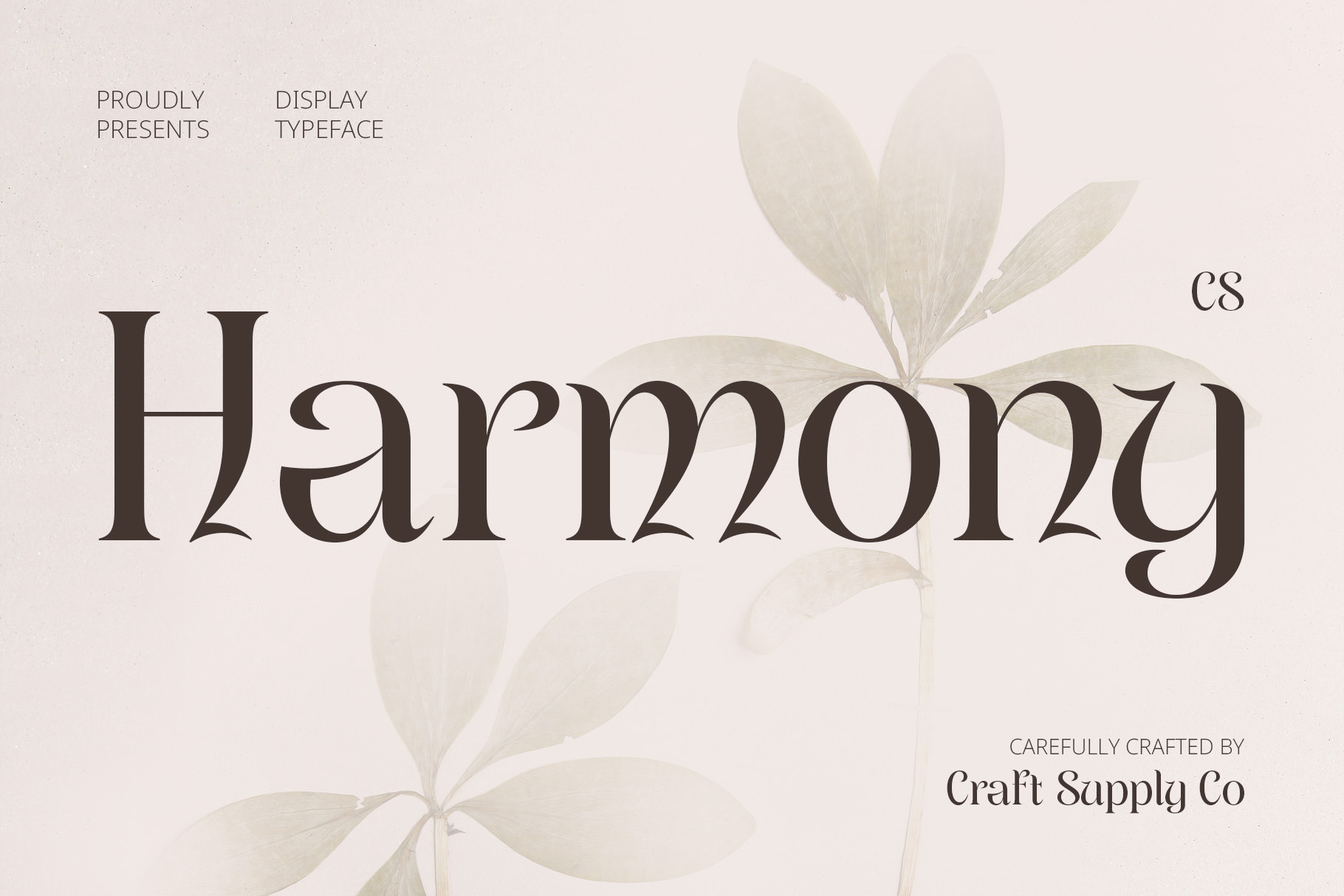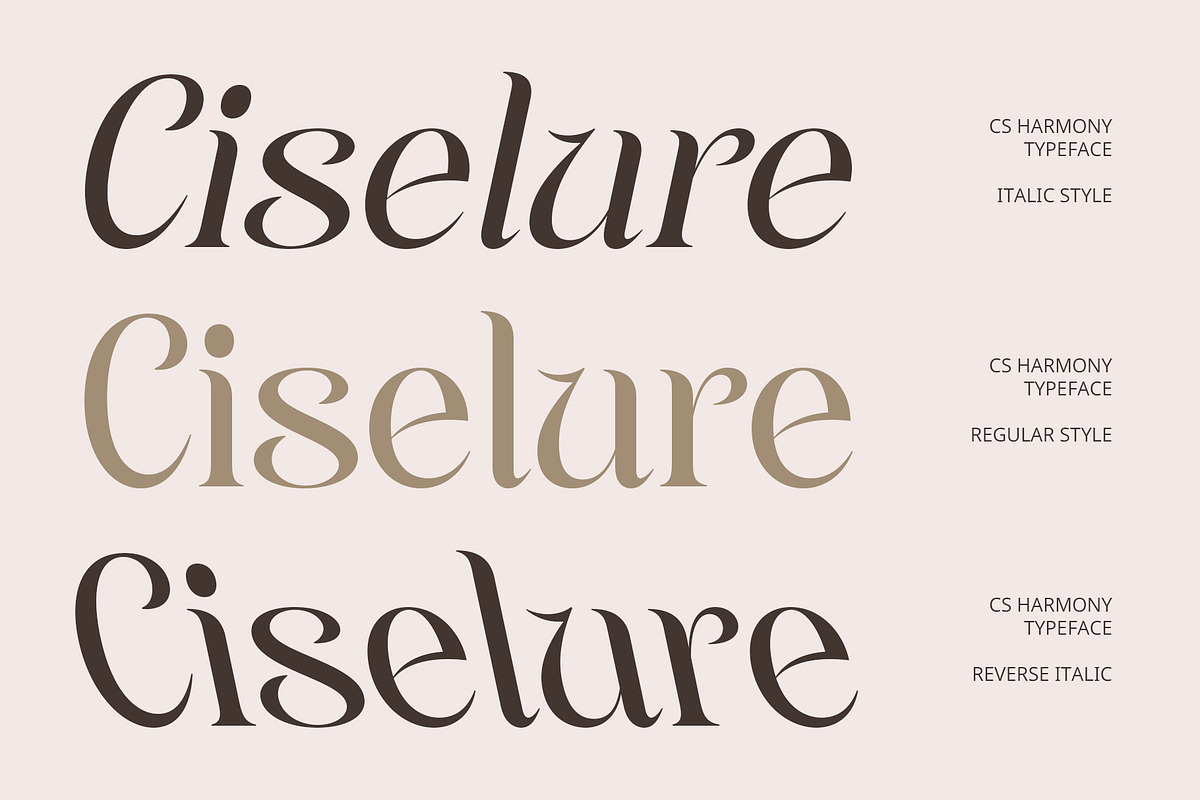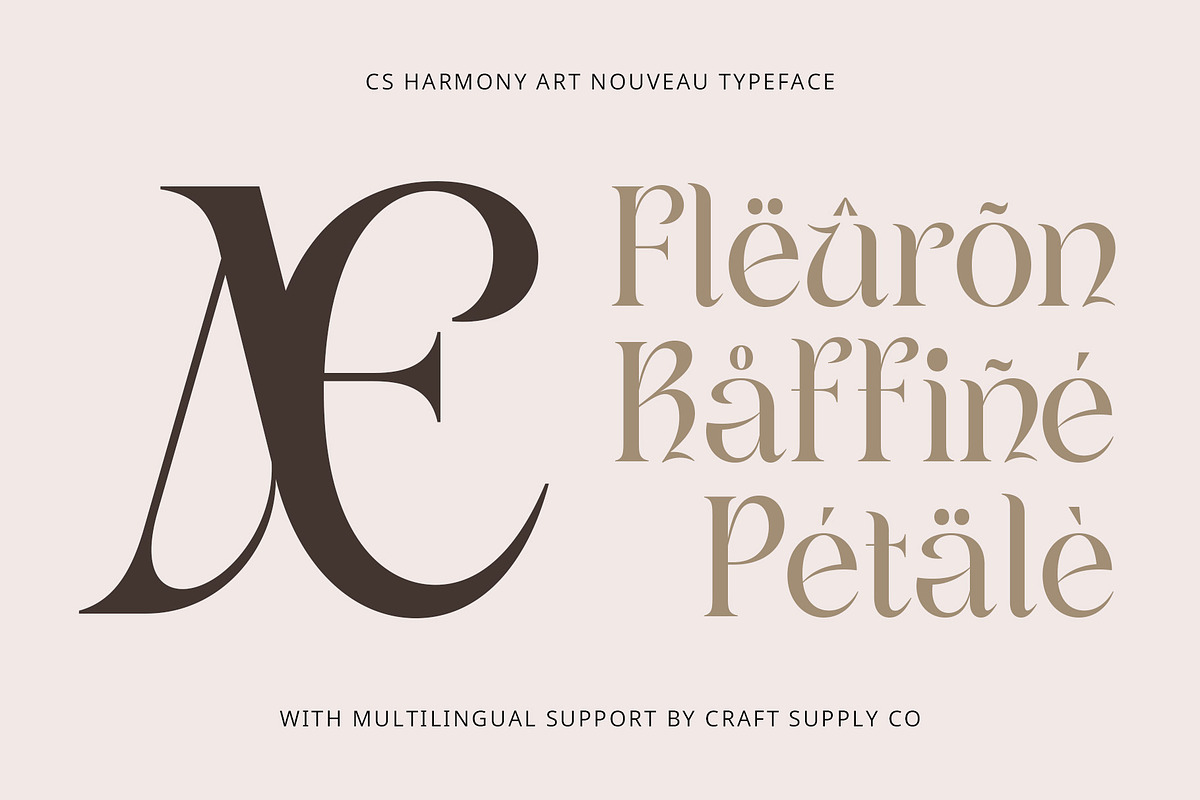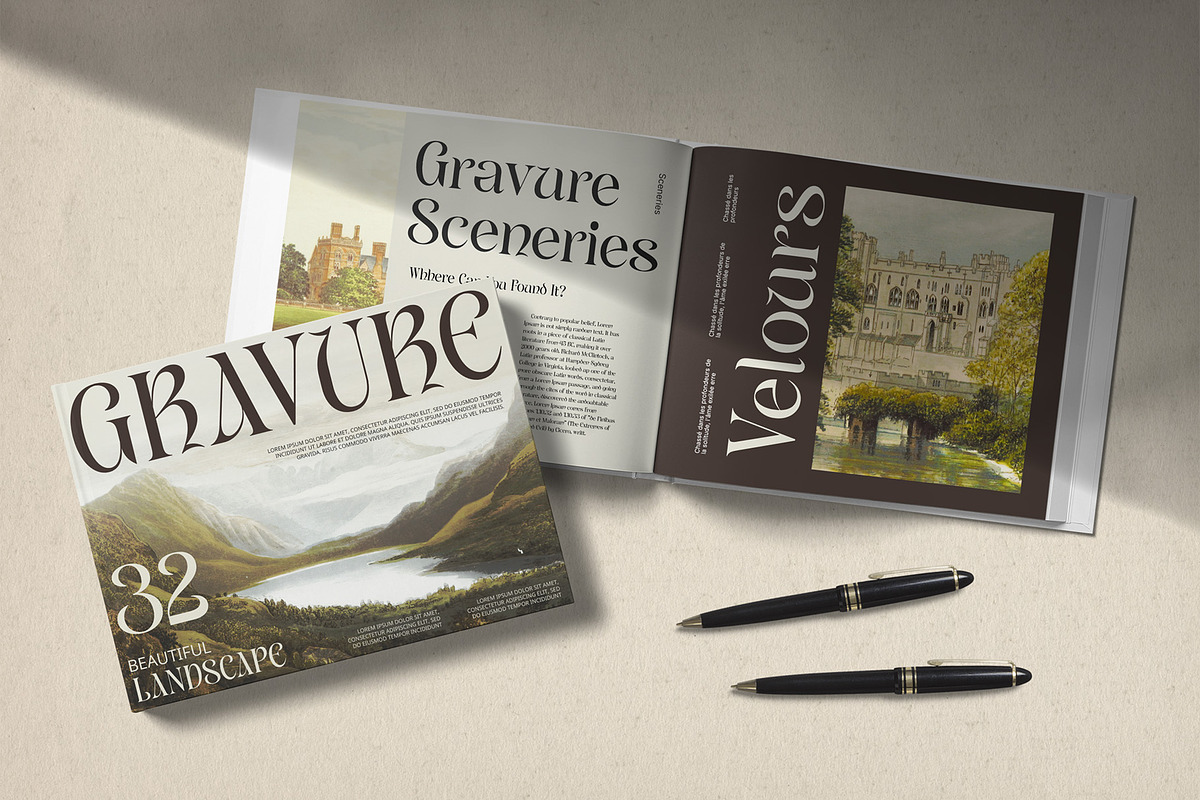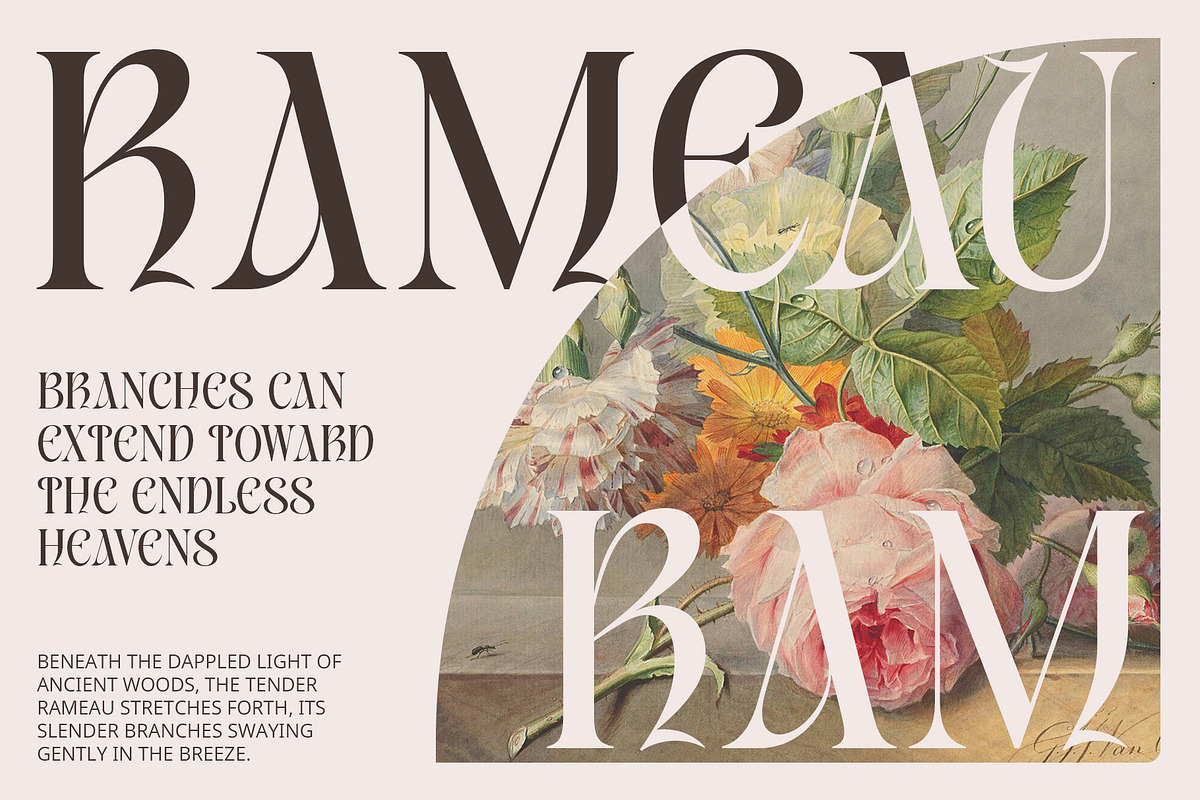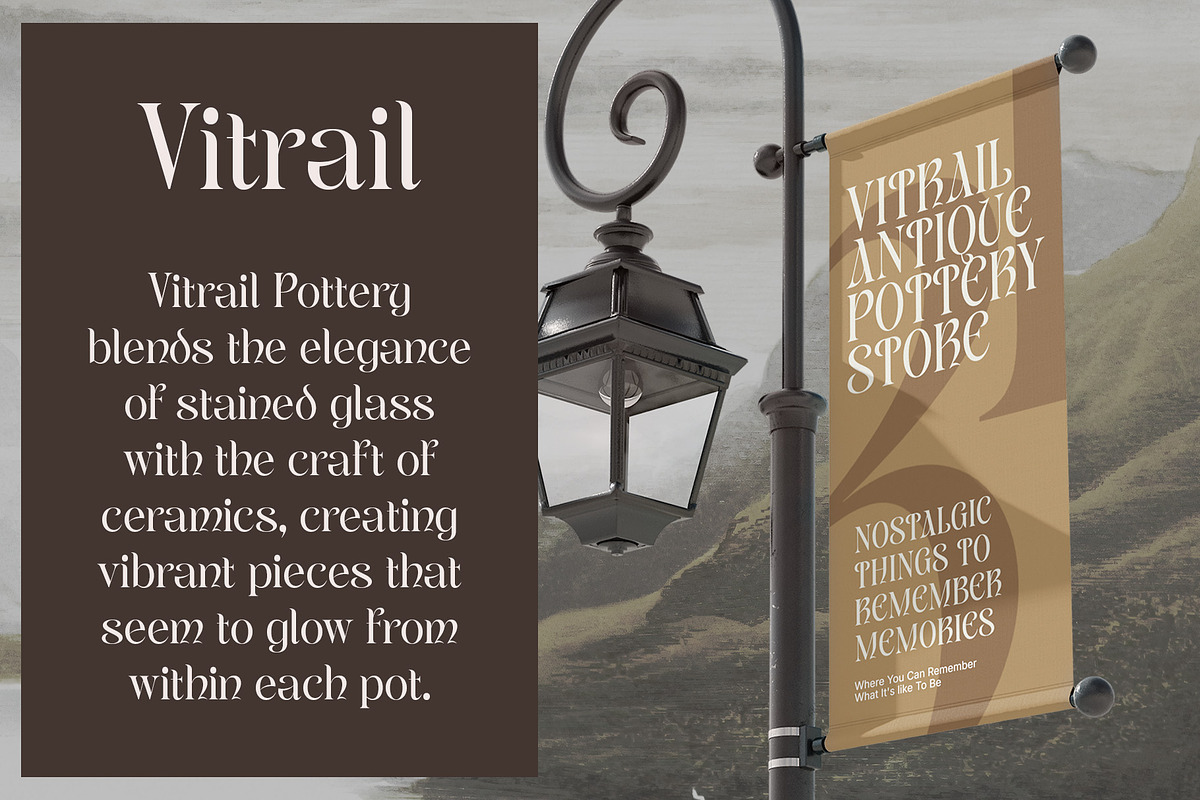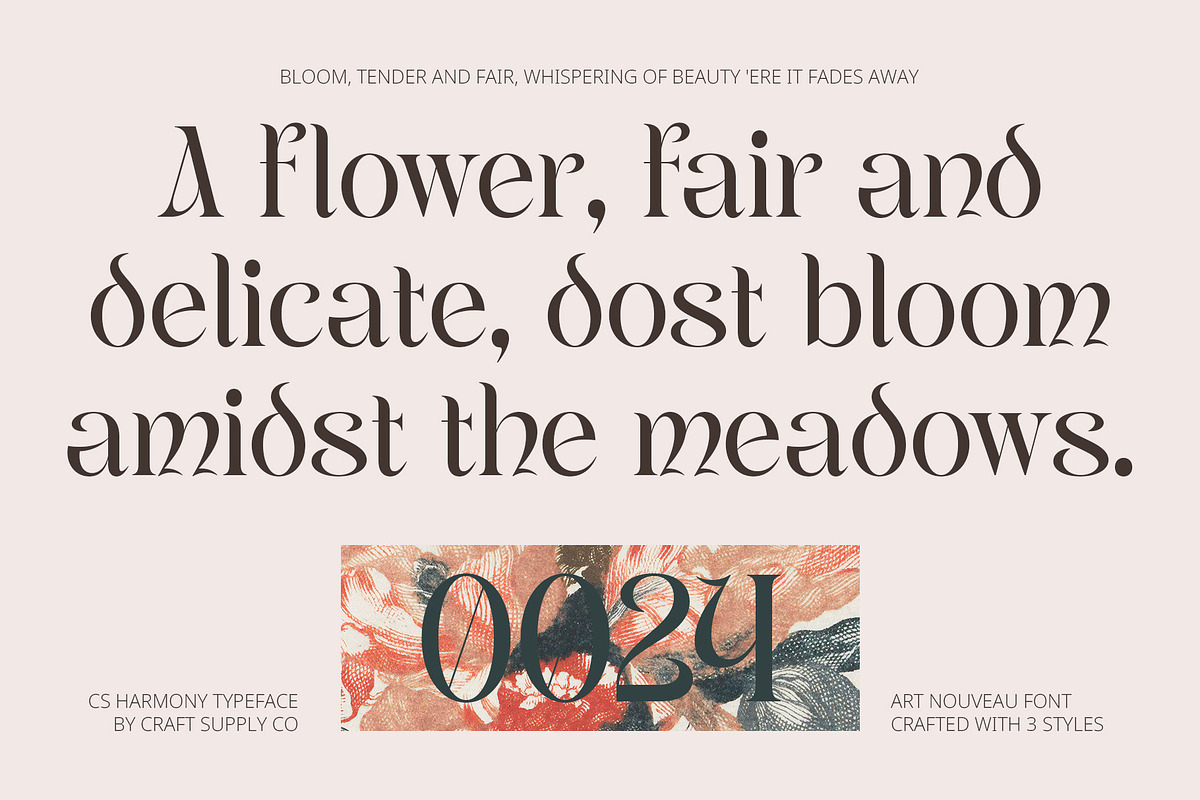
CS Harmony – Uncial Font
CS Harmony – Captivating Modern Uncial Font
Elegant Design with Artistic Influence CS Harmony is a modern serif display font that embodies the elegance and visual allure of Uncial letterforms. With its rounded and flowing shapes, this font exudes a soft, artistic vibe inspired by traditional calligraphy, making it a stunning choice for a variety of design projects.
Versatile for Various Applications Ideal for formal invitations, luxury branding, and any design that emphasizes aesthetics, CS Harmony’s elegant design ensures it captures attention while conveying a sense of sophistication. Its versatility allows it to adapt seamlessly across different mediums, enhancing both print and digital applications.
A Classy Impression for Modern Designs This modern Uncial font creates a classy and alluring impression, perfect for projects that aim to present beauty and sophistication in every detail. The combination of its serif elements and contemporary style adds unique character, making CS Harmony relevant and attractive in today’s design landscape.
Perfect for Elevating Your Brand Whether you’re designing high-end branding or elegant invitations, CS Harmony provides the perfect blend of tradition and modernity. Its graceful letterforms and luxurious appeal make it an exceptional choice for projects seeking to leave a lasting impression with elegance and charm.